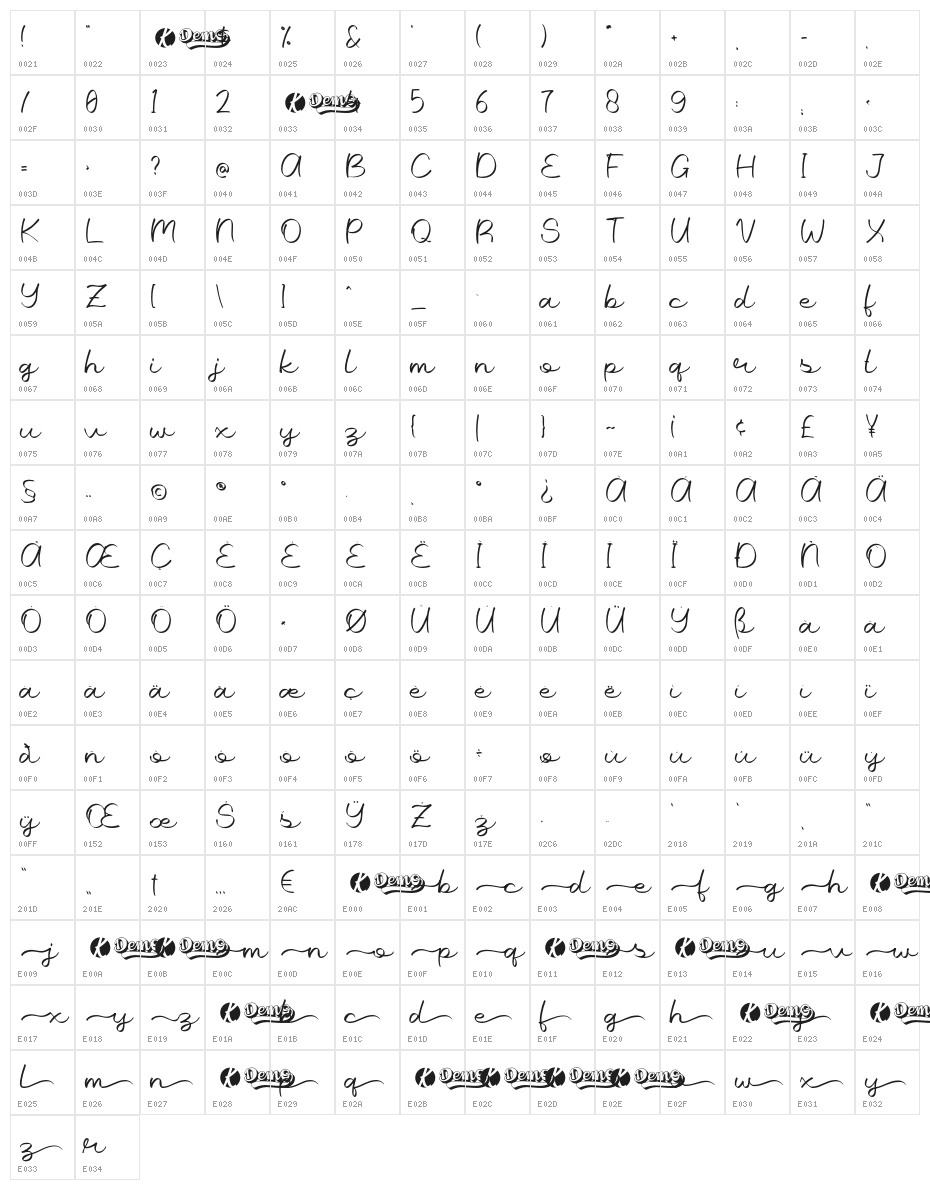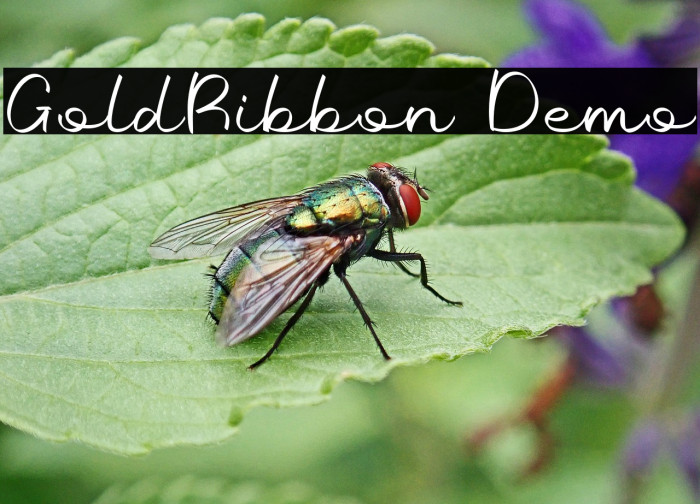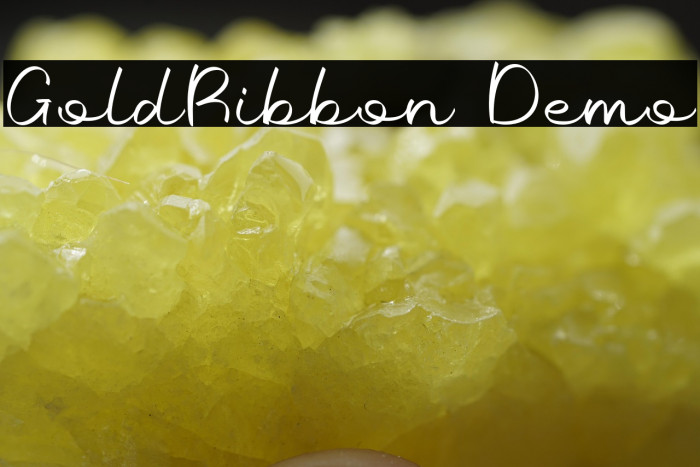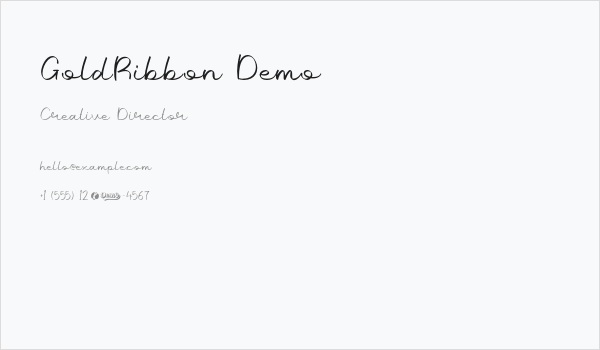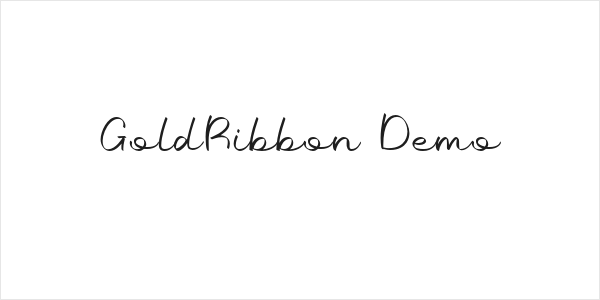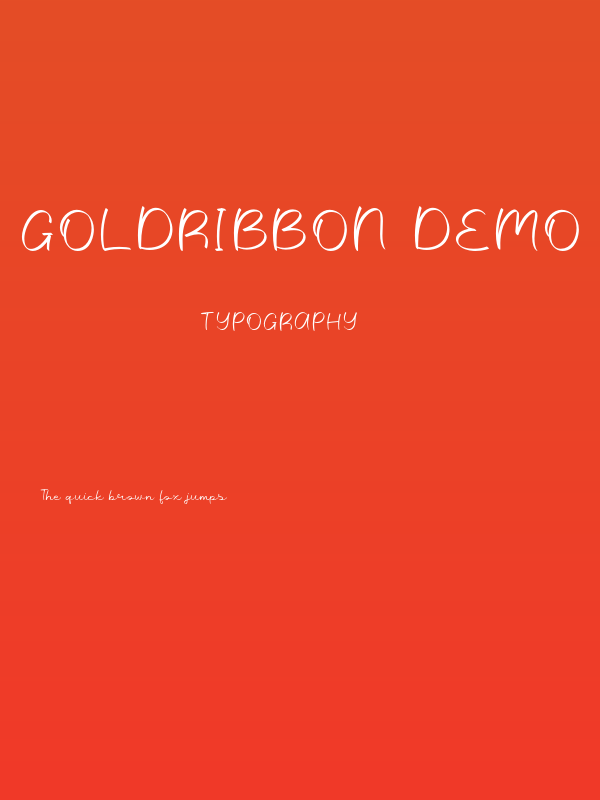
GoldRibbon Demo Font
GoldRibbon Demo Description
This font features a playful and elegant script style with a handwritten feel. The uppercase letters are bold and slightly slanted, giving a sense of movement and fluidity. The lowercase letters maintain a consistent flow, with smooth curves and loops that enhance its cursive nature. Numbers and special characters are designed to match the overall aesthetic, providing a cohesive look. The font exudes a friendly and approachable vibe, making it suitable for creative and informal projects.
Use CaseLogos, Invitations, Greeting Cards
Proposed ProjectsIdeal for wedding invitations, greeting cards, branding, and logo design.